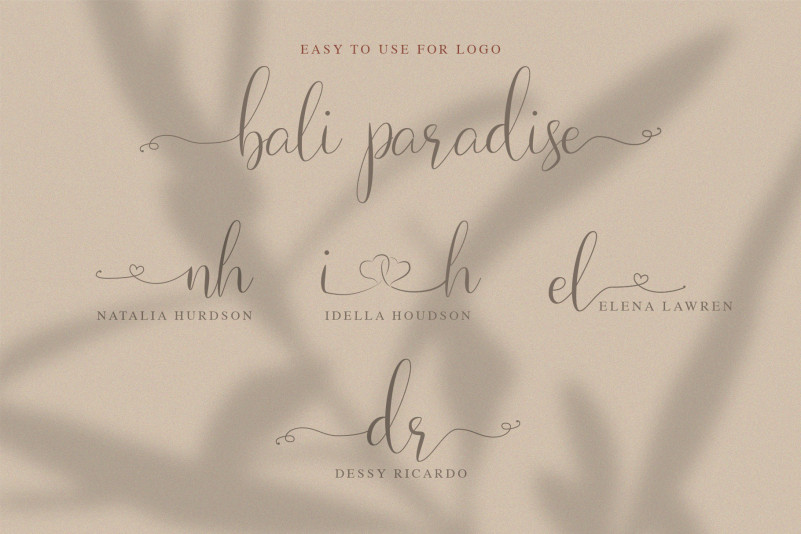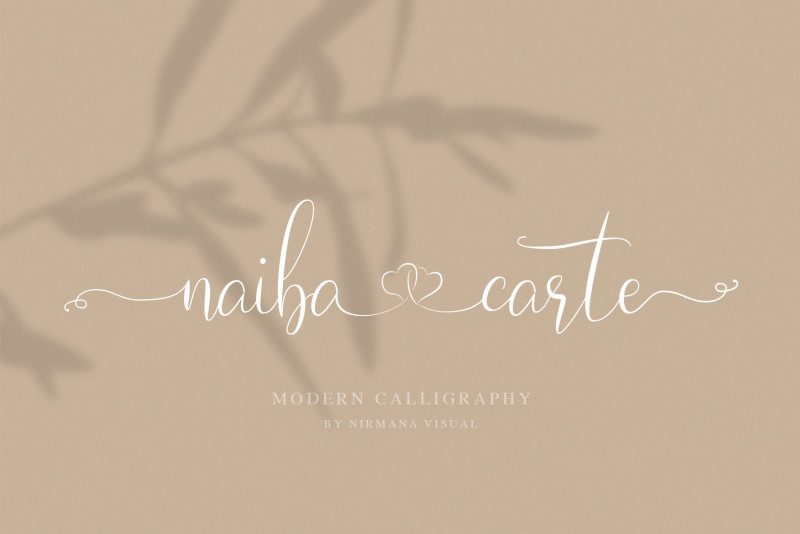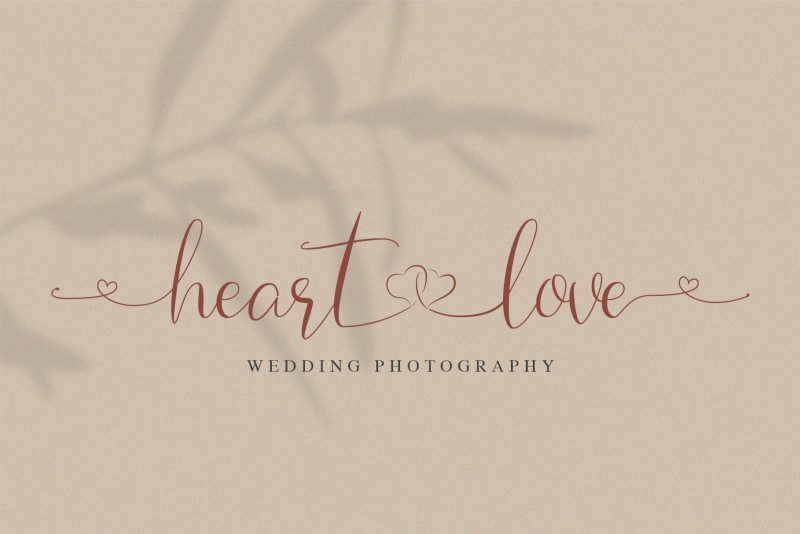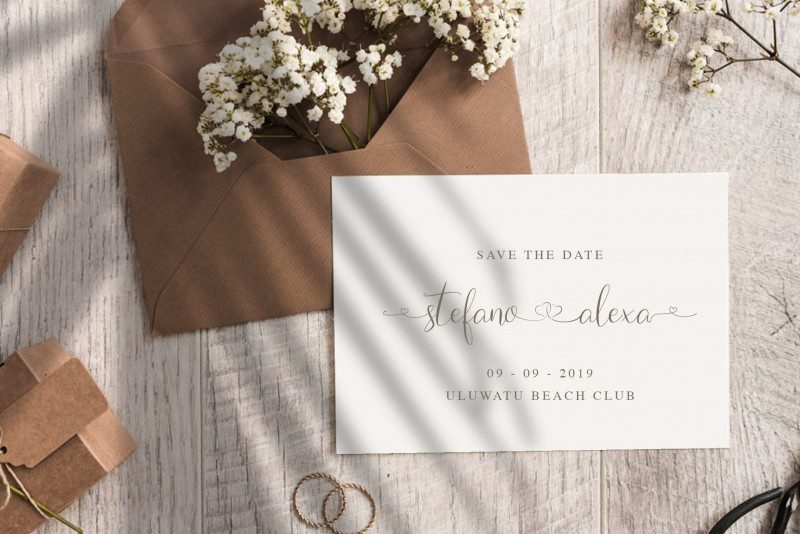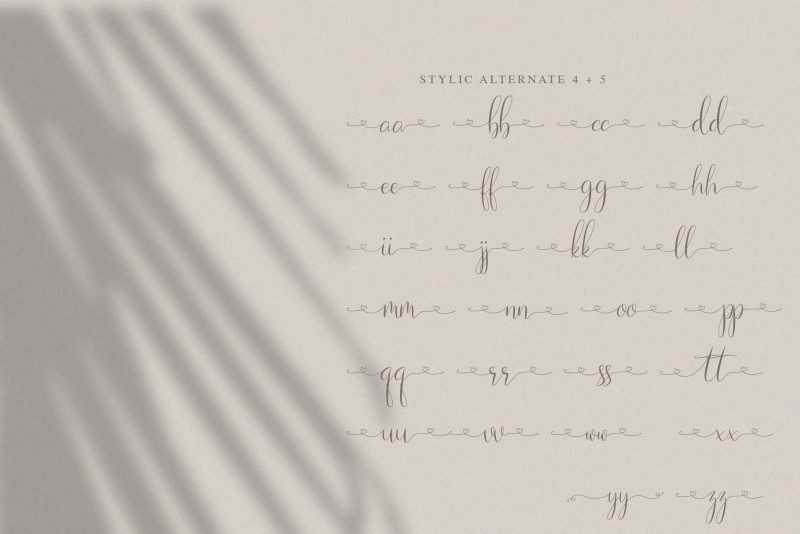
Naibacarte Script Font
Naibacarte Font inspired by the power of romantic love… created with passion heart dedicated to make easy use, perfect for branding, wedding project, logo, quote, etc